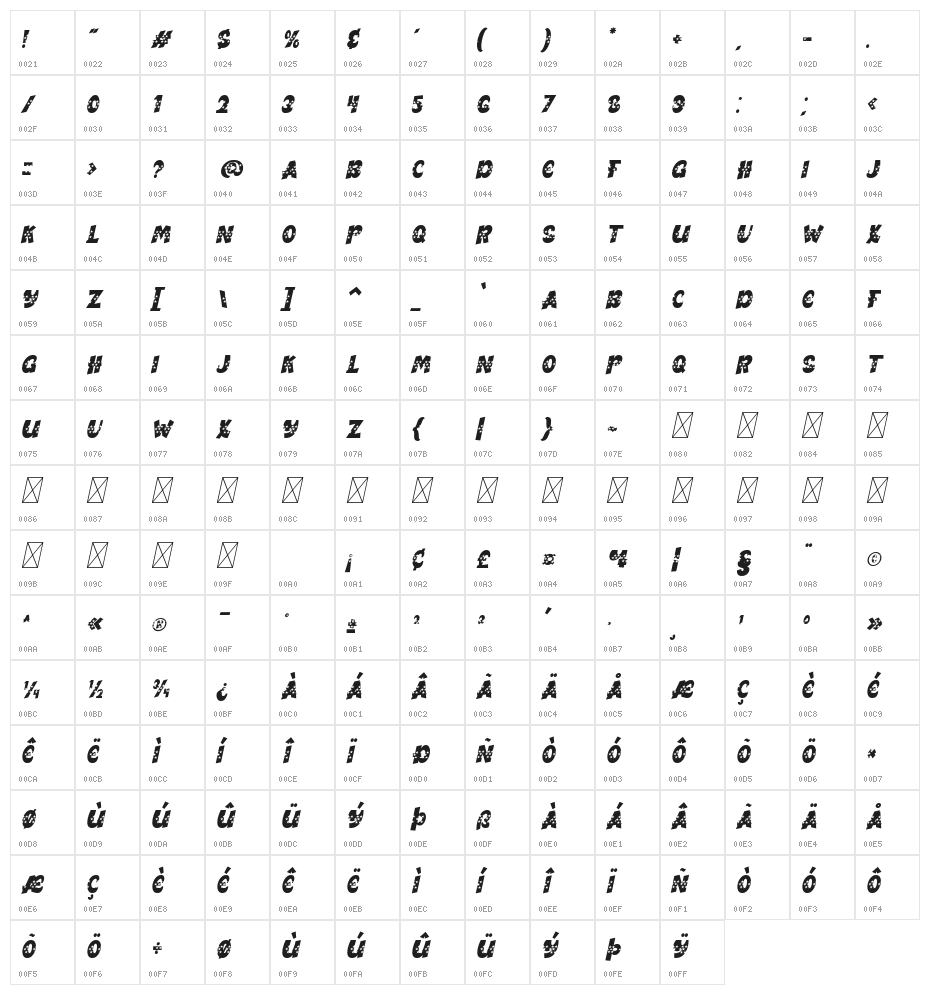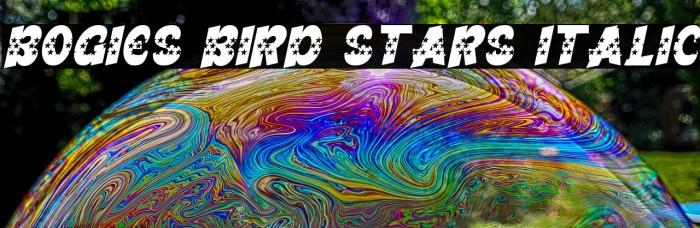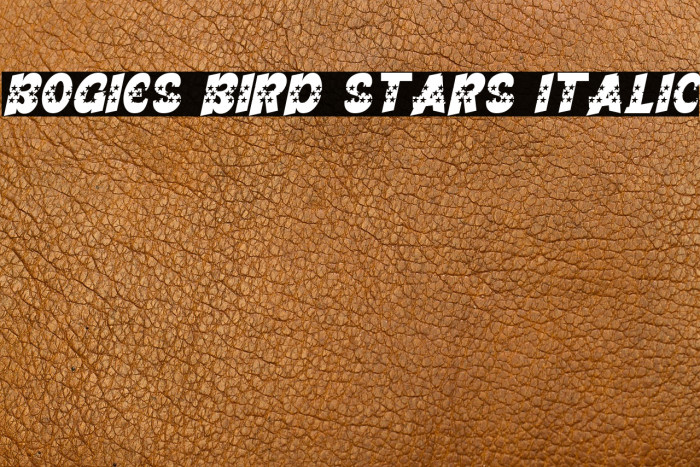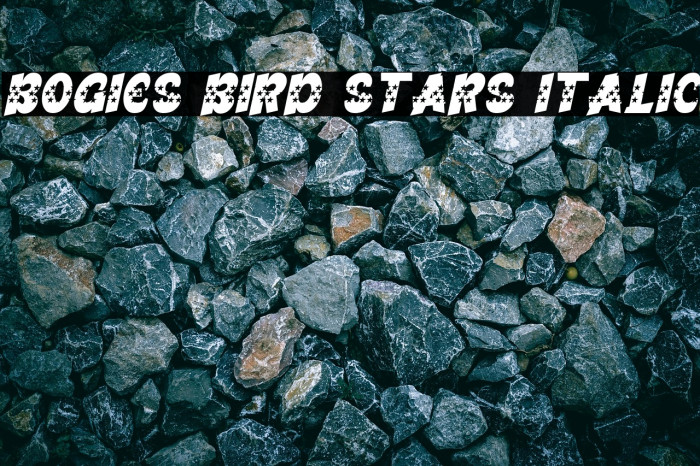
Bogies Bird Stars Italic Font
Bogies Bird Stars Italic Description
This playful and decorative font features bold, italicized characters filled with star patterns, creating a whimsical and eye-catching effect. The letters are slanted, adding a dynamic sense of movement, while the star-filled interiors provide a unique texture. The font maintains a consistent weight throughout, with wide strokes that enhance its bold appearance. The character spacing is normal, ensuring readability despite the intricate design. This font is ideal for projects that require a fun and engaging aesthetic, such as children's book covers, party invitations, or festive event posters.
| Proposed Projects | Children's book covers, party invitations, festive event posters, playful branding. |